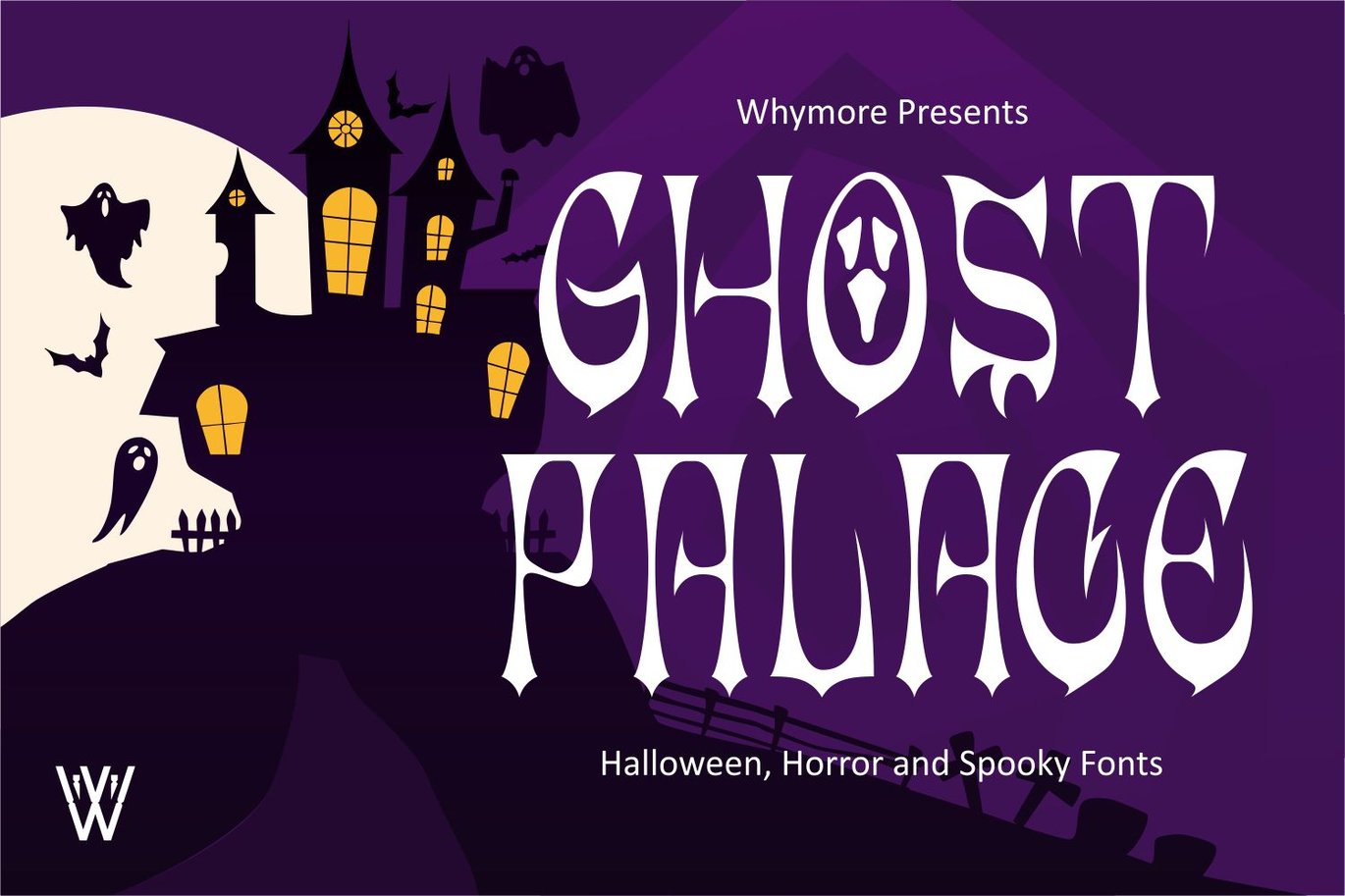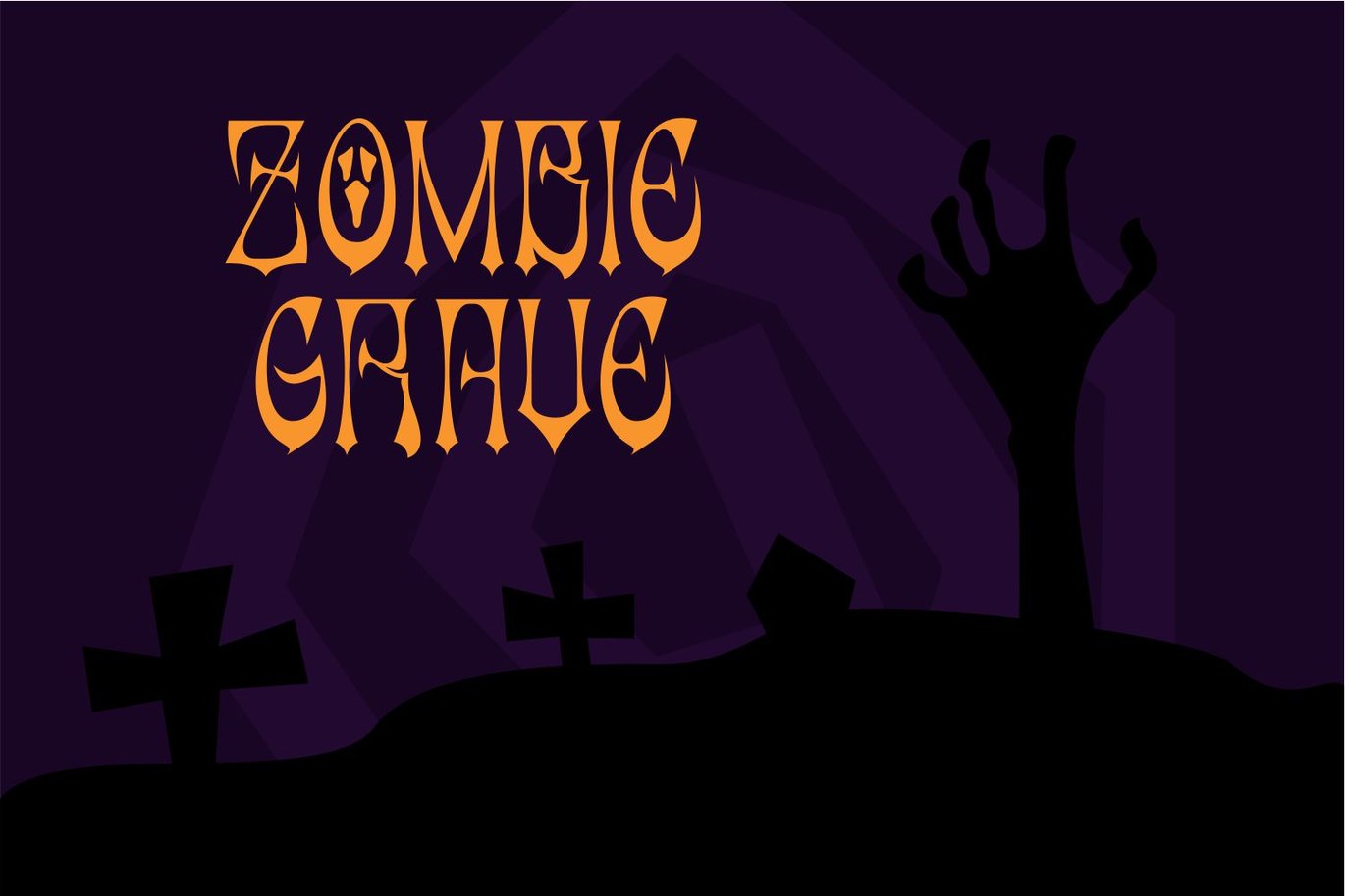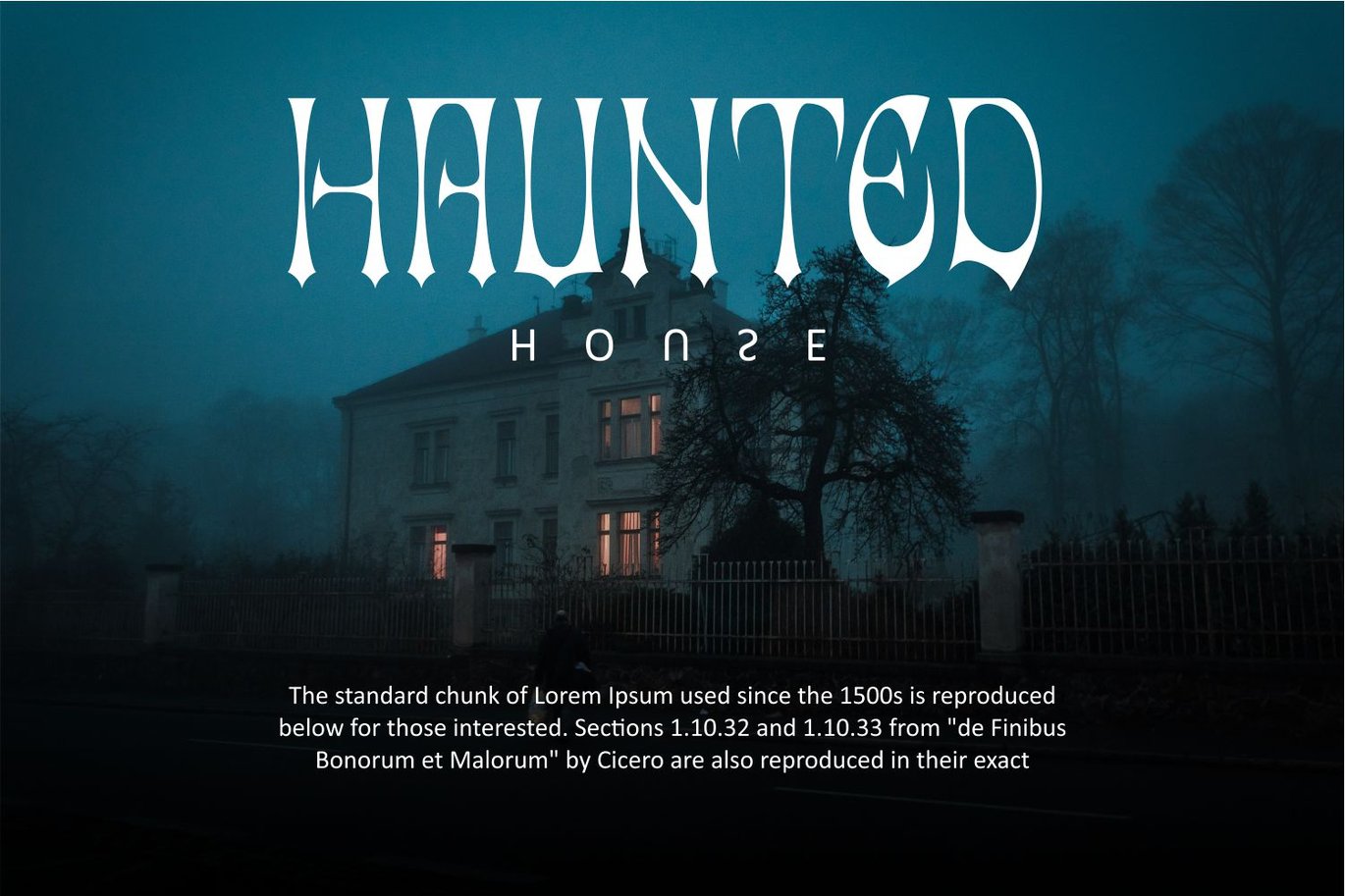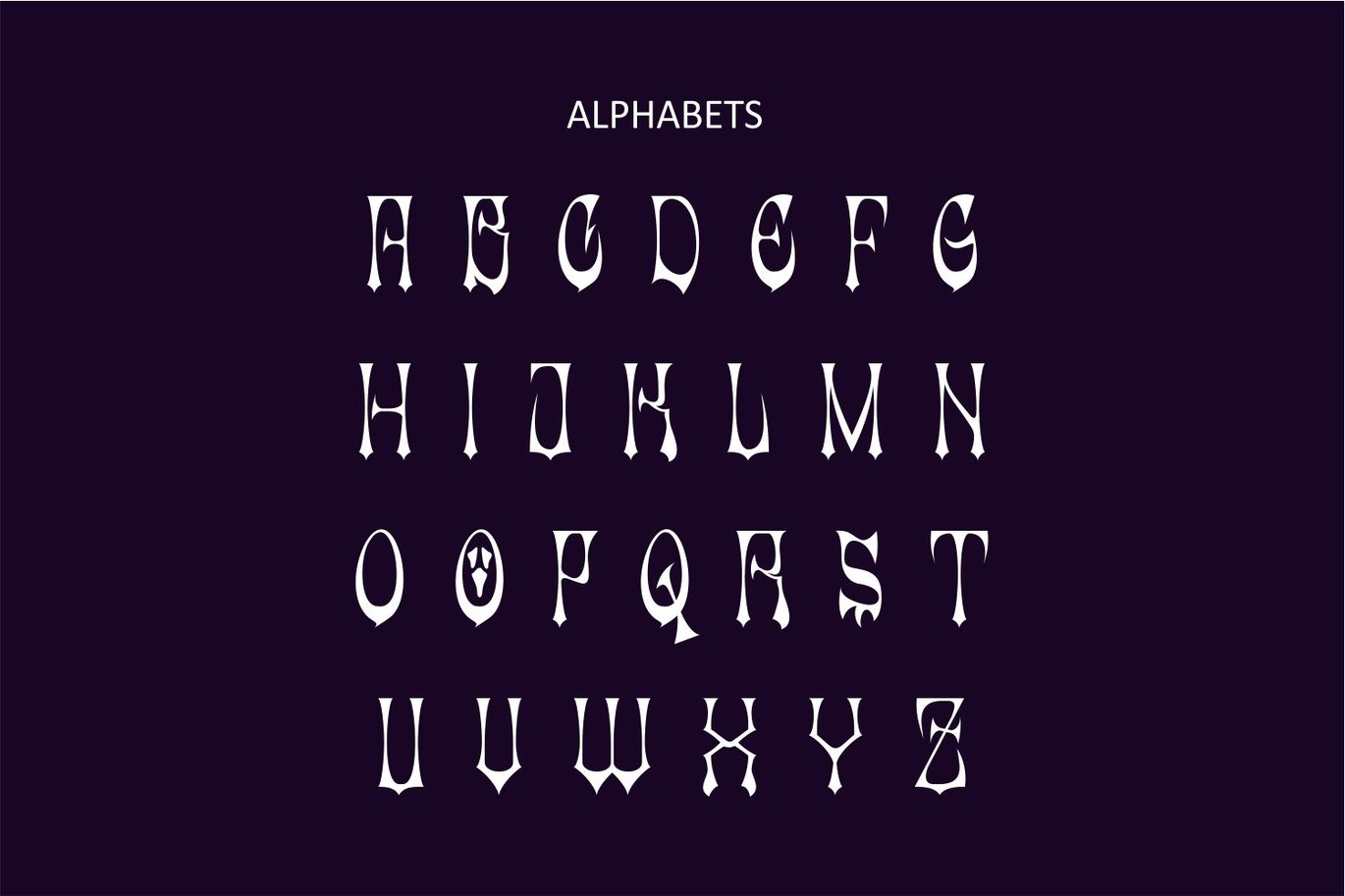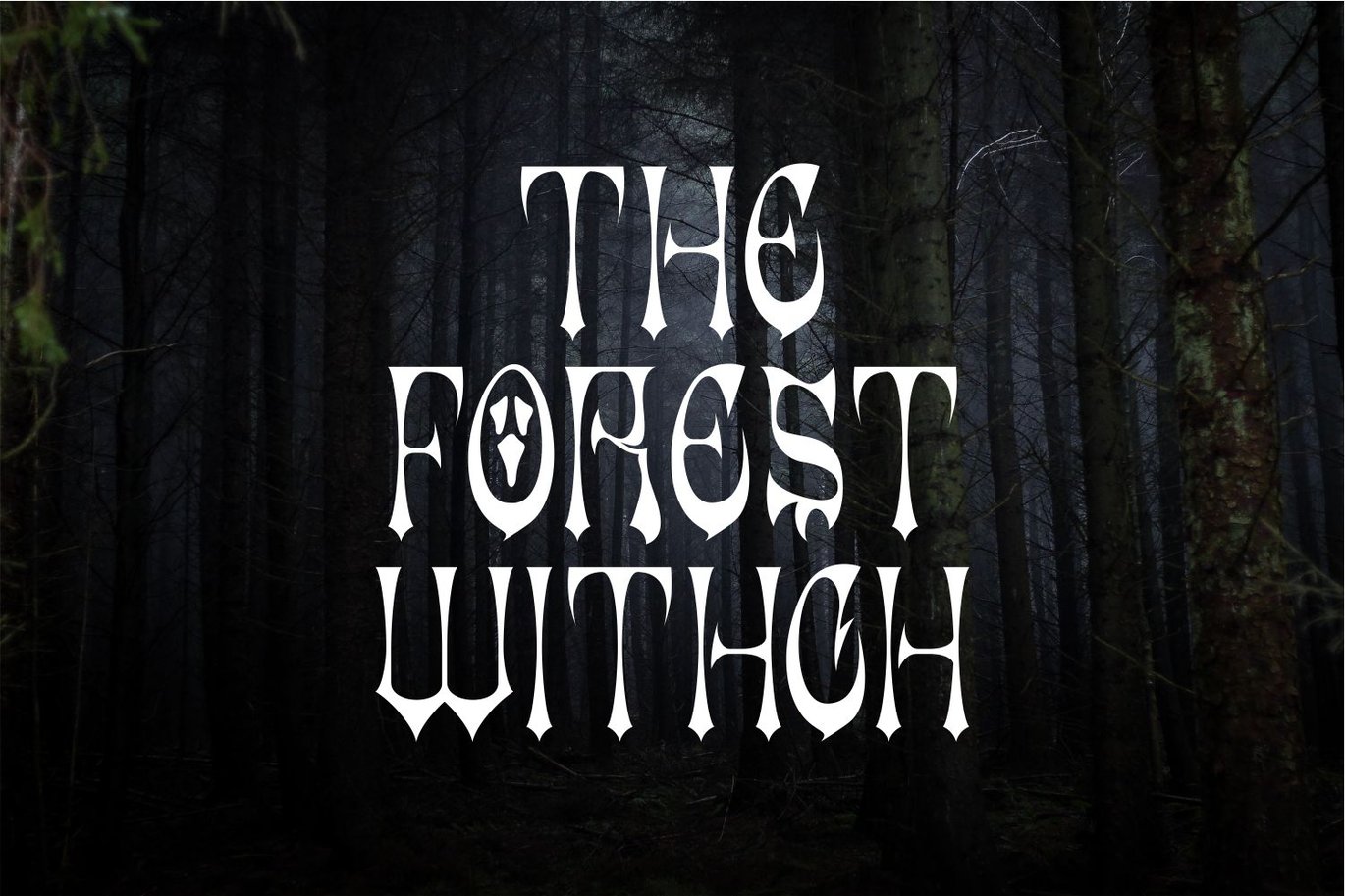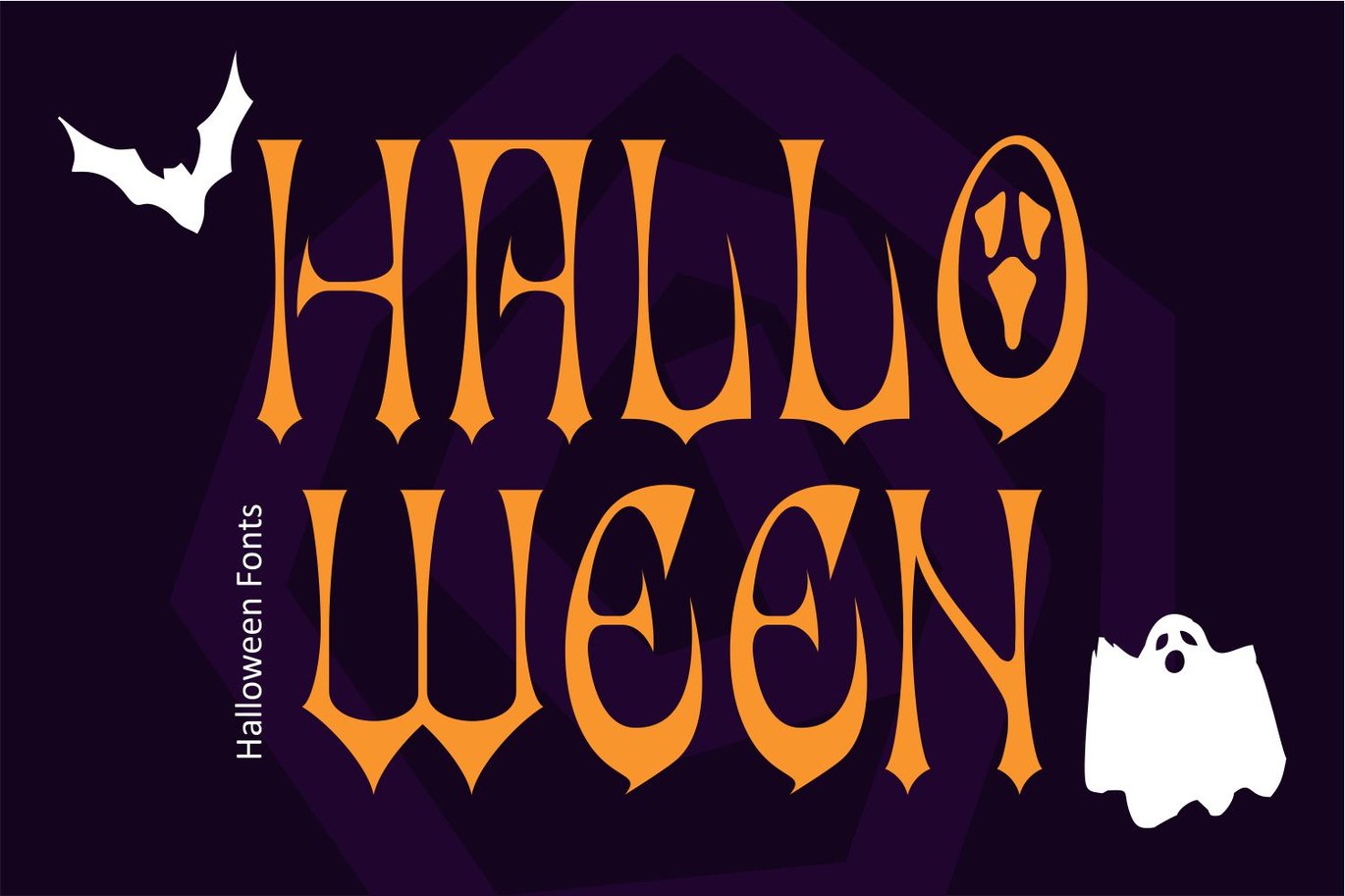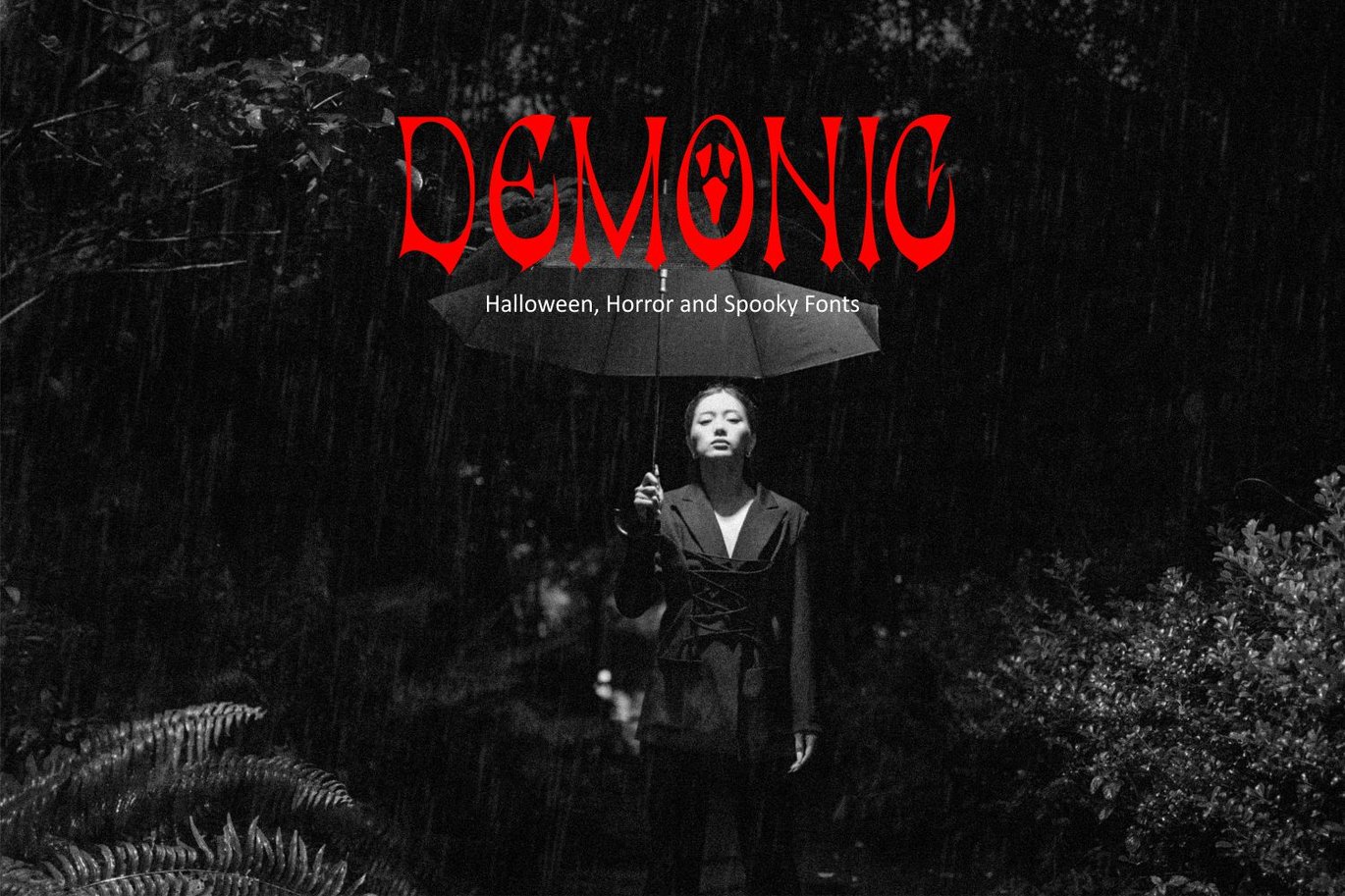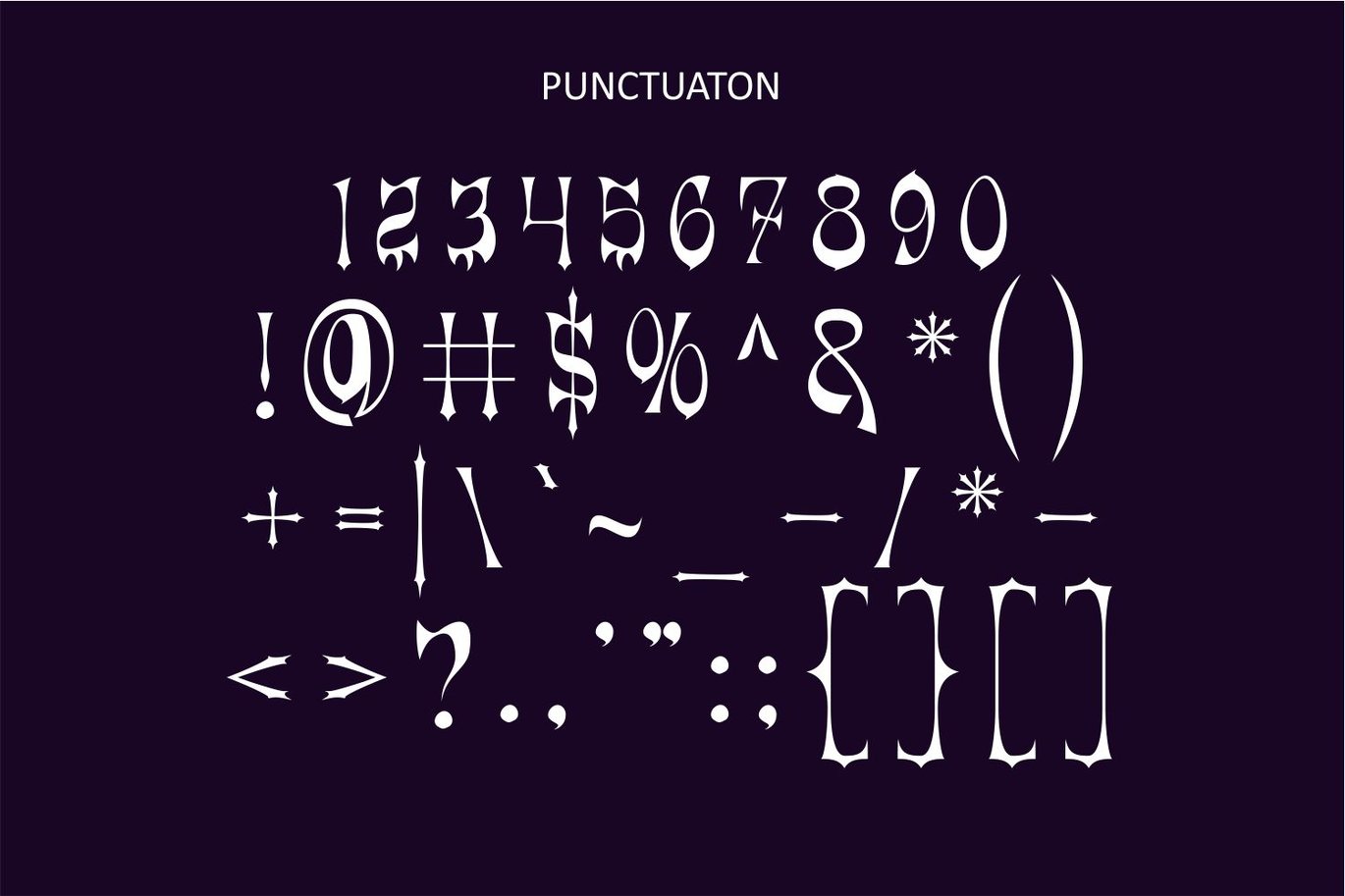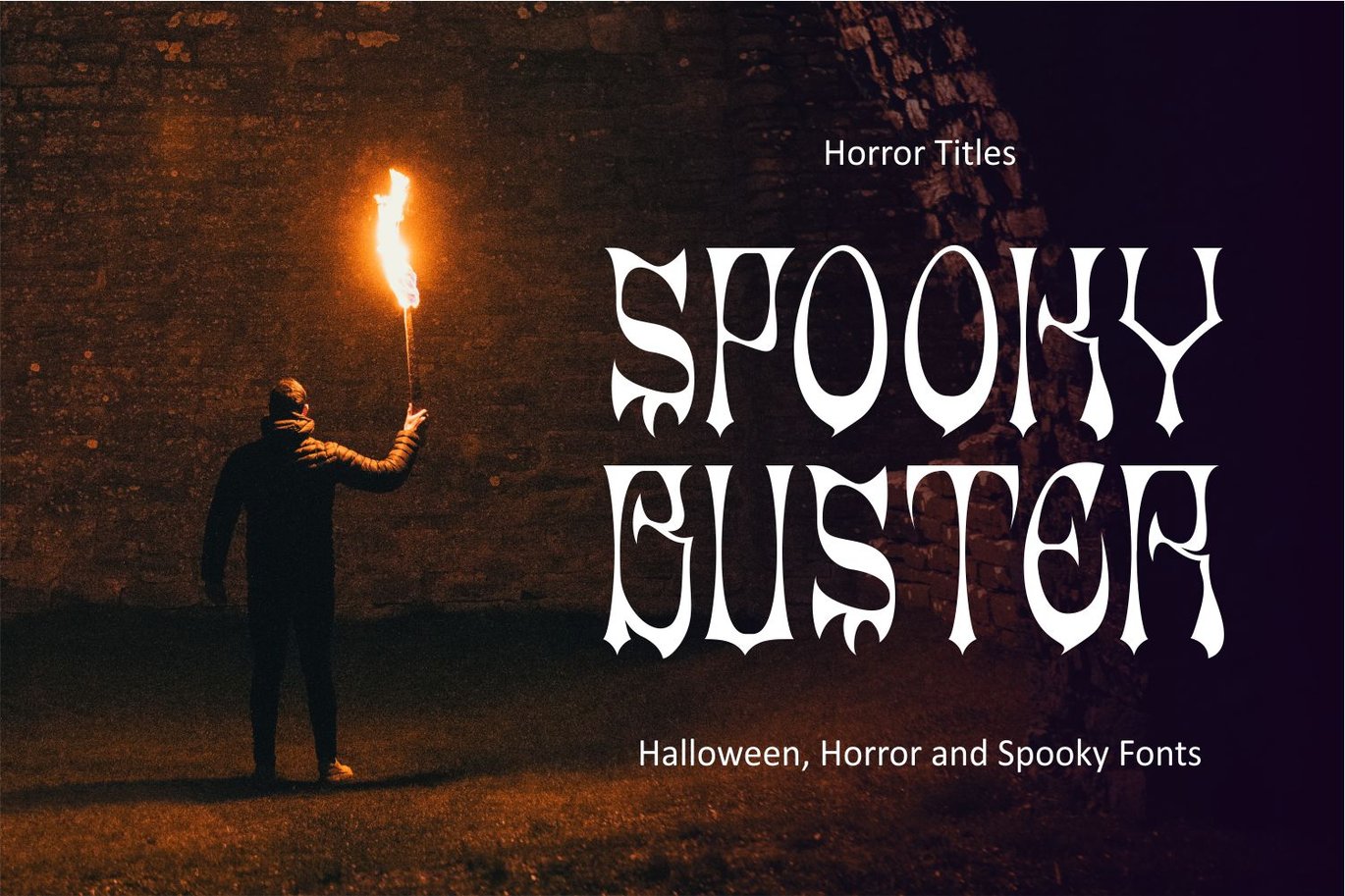
Ghost Palace – Halloween Font
Hey, Are you ready for Halloween this year. Let the Ghost Palace Font accompany you to enliven your party decorations.
Ghost Palace is created with a semi-curly style and an awesome tropical yet horror vibe, making it perfect for quotes, logos, badges, labels, packaging, t-shirts, or simply to use in your next design project. Especially in celebration of Halloween